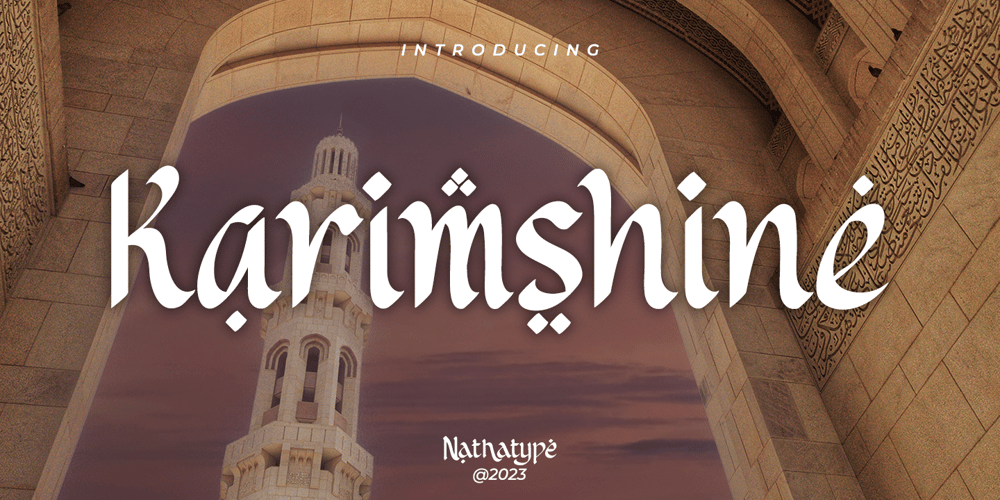
Karimshine Font Family was designed by Donis Miftahudin and published by Nathatype. Karimshine contains 1 styles and family package options. Introducing Karimshine, a captivating display font that seamlessly merges the artistry of Arabic script with modern design principles. Karimshine draws its inspiration from the graceful curves and strokes of Arabic calligraphy. It captures the essence of this artistic tradition, infusing each character with the timeless beauty of Arabic writing. The font retains the integrity of Arabic script while prioritizing readability through consistent proportions and low contrast. In addition, enjoy the features here. Karimshine fits in headlines, logos, posters, flyers, branding materials, print media, editorial layouts, and many more designs. Find out more ways to use this font by taking a look at the font preview.